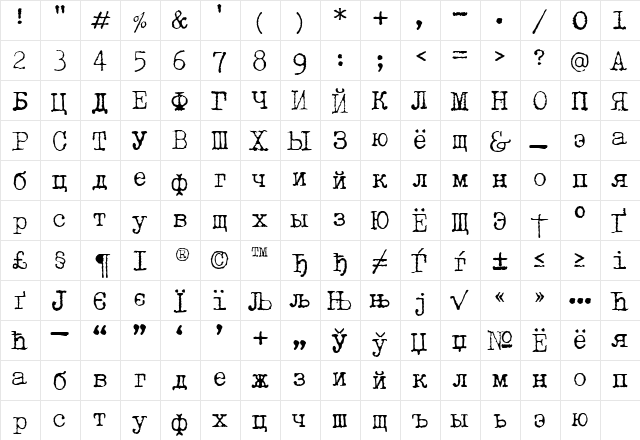
LetteraTrentadue Regular
Design Context for LetteraTrentadue Typeface
LetteraTrentadue is a composed and adaptable typeface that performs quietly and consistently across a wide range of design contexts.